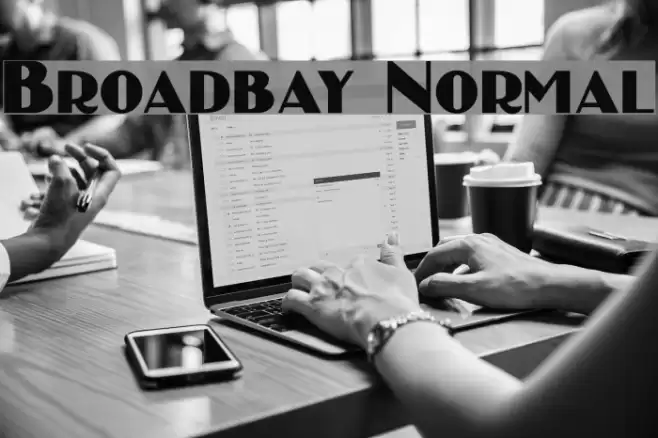
Broadbay Normal Font
Broadbay Normal Description
This font features a bold and striking design with a strong presence. The characters are crafted with a unique blend of geometric shapes and sharp angles, giving it a modern and dynamic appearance. The uppercase letters are particularly prominent, with a distinct emphasis on vertical and horizontal strokes. The lowercase letters maintain a consistent style, complementing the uppercase set. Numbers are bold and clear, ensuring readability. Special characters are designed with the same attention to detail, making them stand out. Overall, this font is ideal for projects that require a bold and impactful visual statement.
A bold, modern font with geometric shapes and sharp angles from Uncategorized fonts.
- Proposed Projects: Ideal for branding, posters, headlines, and any design requiring a strong visual impact.